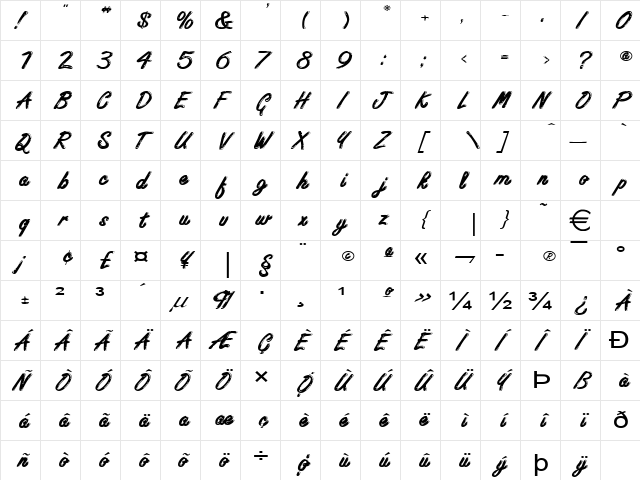
EncinoExtended Normal Font Preview
EncinoExtended Normal
Design Context for EncinoExtended Typeface
EncinoExtended is a composed and adaptable typeface that performs quietly and consistently across a wide range of design contexts.